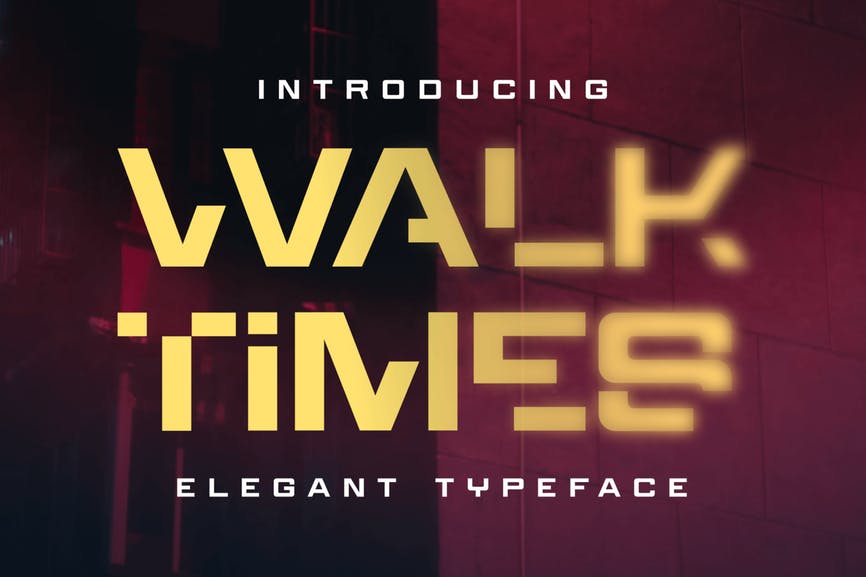
DS Walktimes – Elegant Typeface
Walktimes – Elegant Typeface is a modern stylish font made for designers, a strong and elegant font can enhance project quality.
Walktimes is perfect for design, logos, social media, branding, advertising, product design,film, quotes, product packaging, headers, posters, merchandise, and other designs.